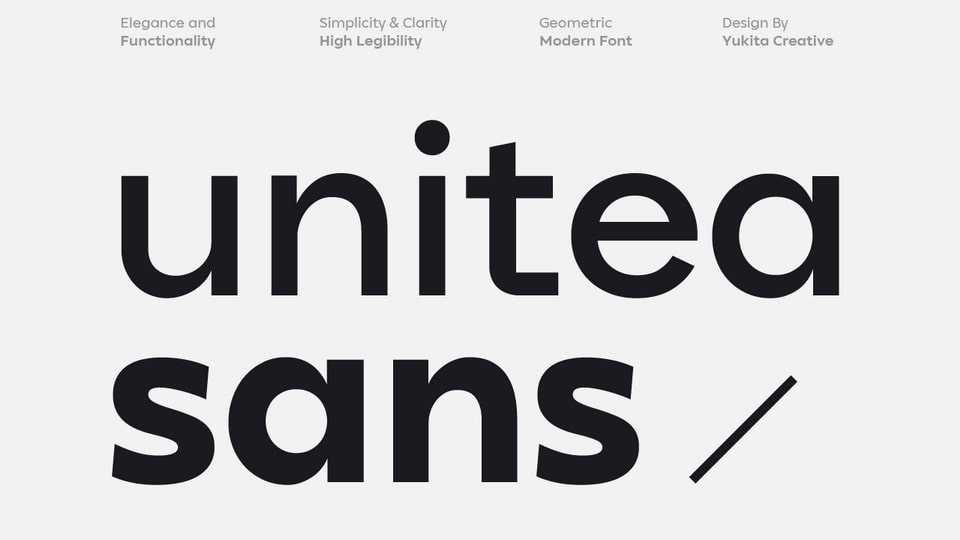
Download Unitea Sans font, a modern geometric sans serif typeface, expertly designed to provide high readability and versatility across various design projects.
Designer: Yukita Creative